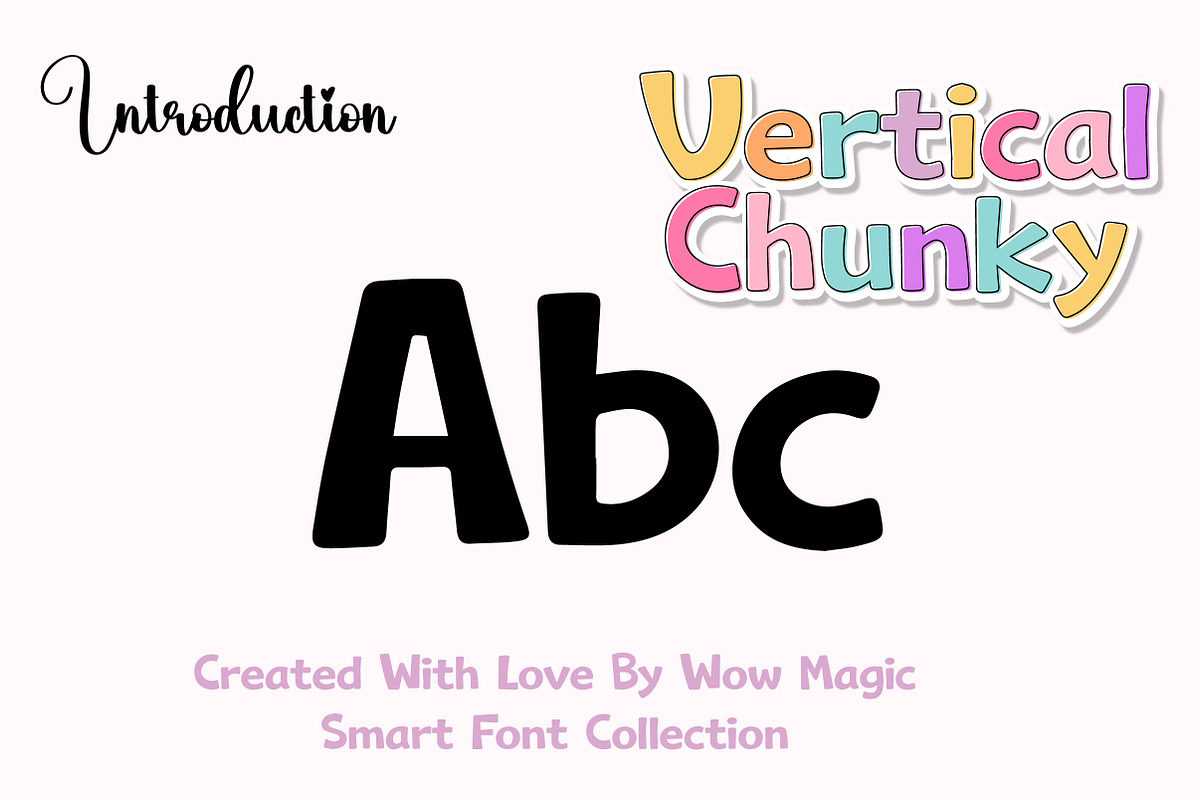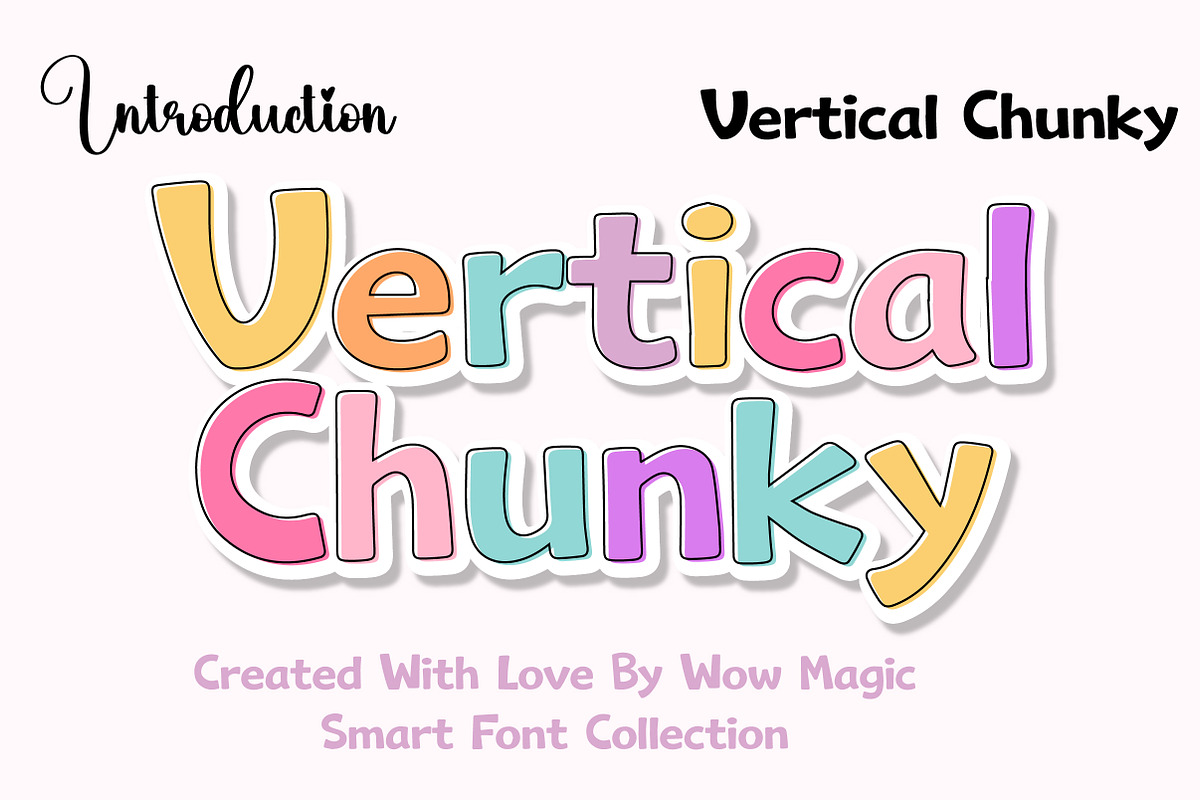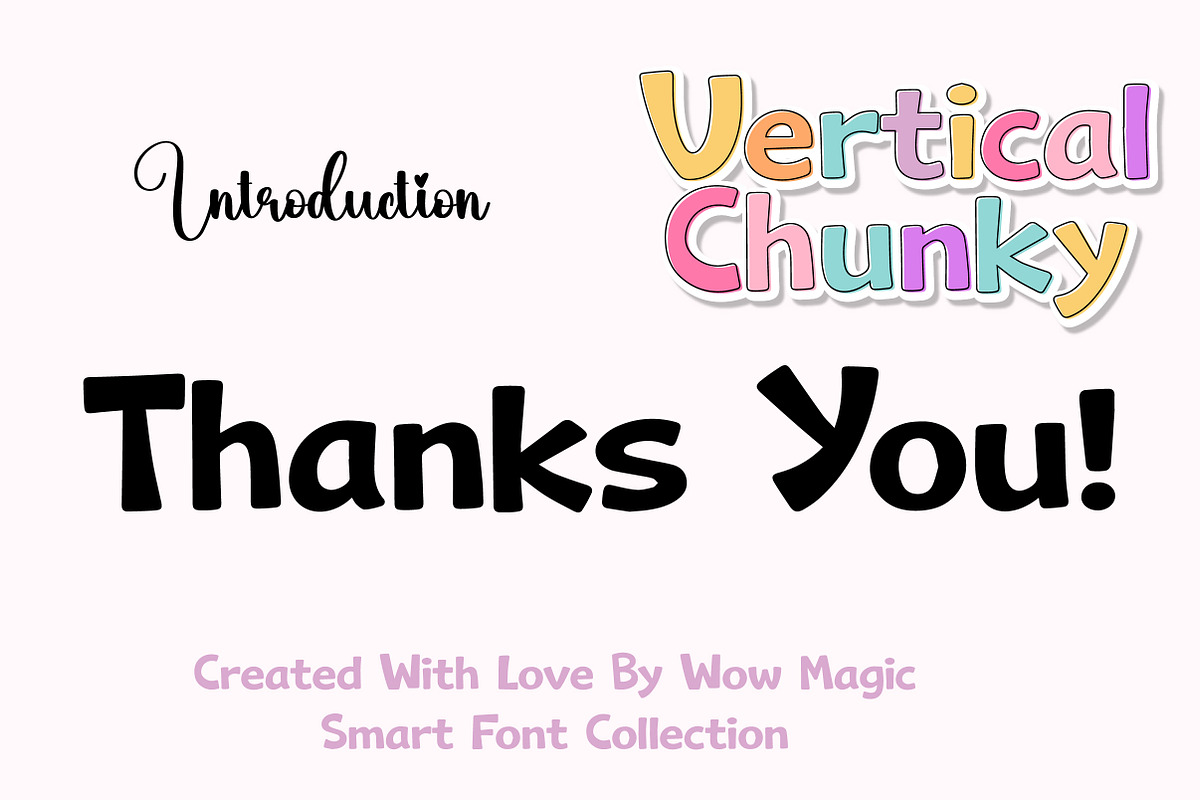
Vertical Chunky
Vertical Chunky is a bold and playful display font featuring thick strokes, rounded corners, and a strong vertical presence. Its chunky letterforms and smooth curves create a fun and friendly personality that instantly stands out in creative designs.
The tall proportions and heavy structure give the font a confident visual impact while keeping it highly readable. Vertical Chunky is perfect for branding, posters, packaging, logos, social media graphics, kids projects, and bold headline designs that need a lively and modern touch.
With its cheerful style and strong geometric look, Vertical Chunky works beautifully in both digital and print projects. It’s an ideal choice for designers who want a font that feels fun, energetic, and visually powerful.